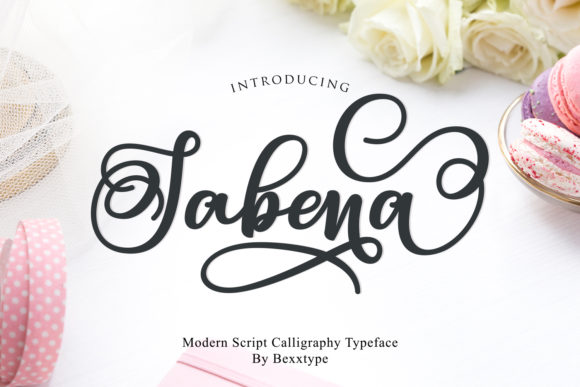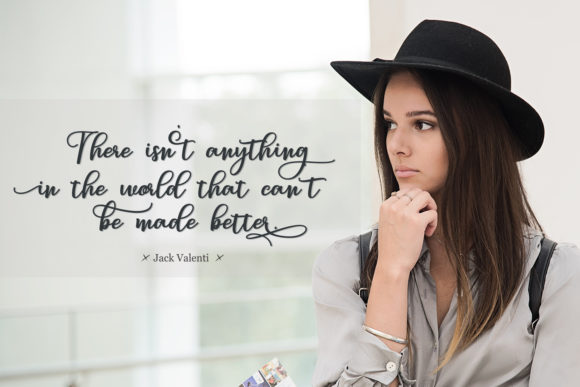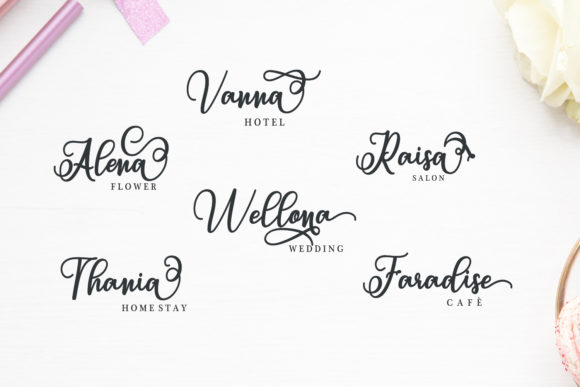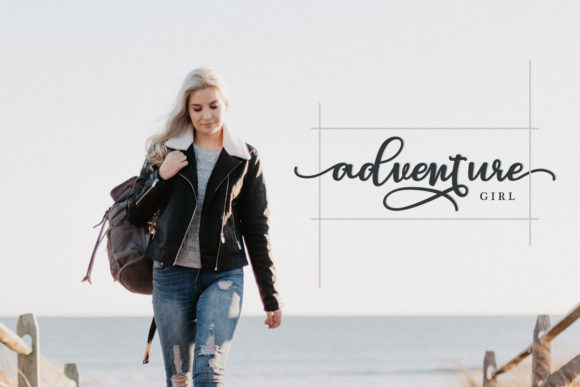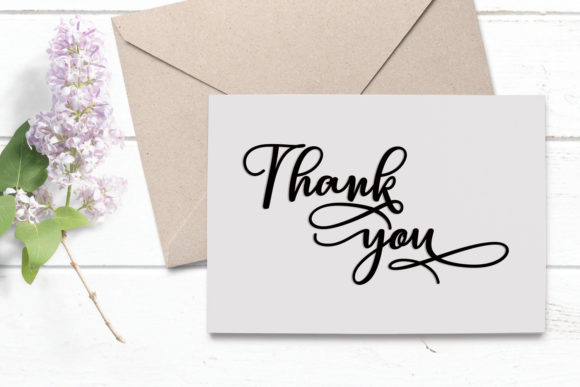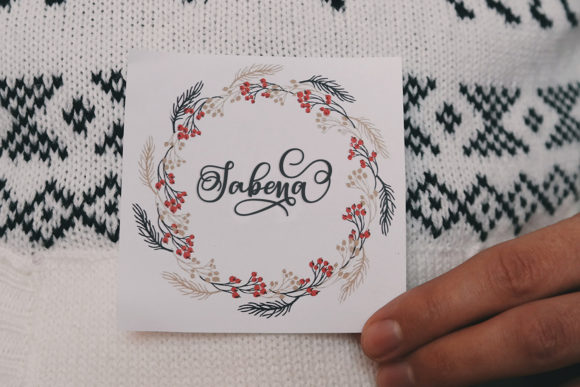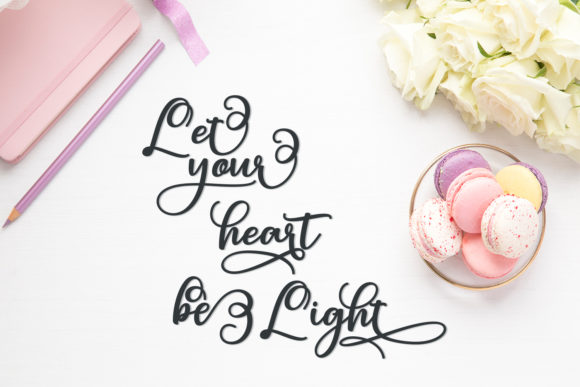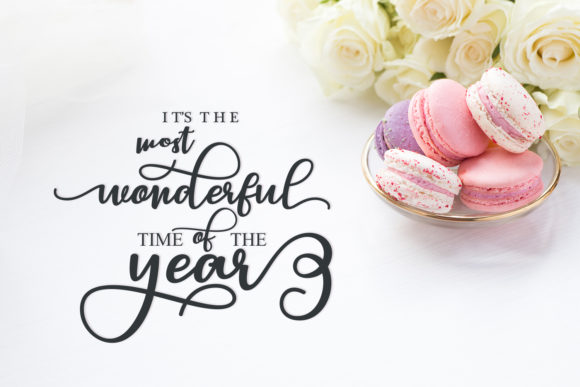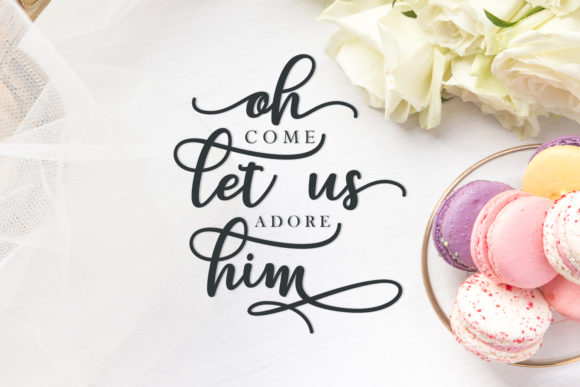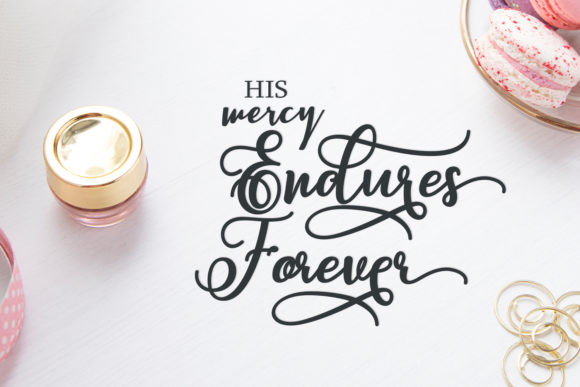
Sabena Script Font
About Sabena Script Font
The Sabena is an elegant calligraphy script. It has decorative characters and a dancing baseline.
It can be used for greeting cards, branding, quotes, posters, and much more!